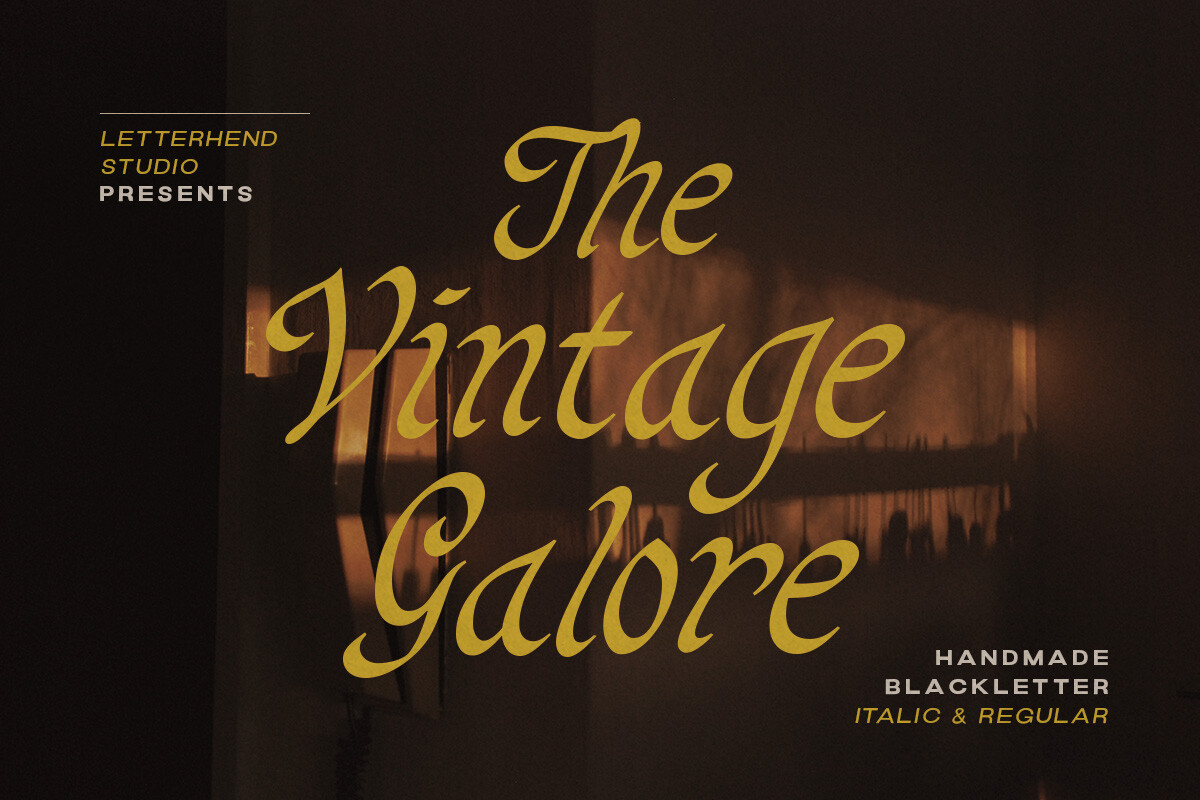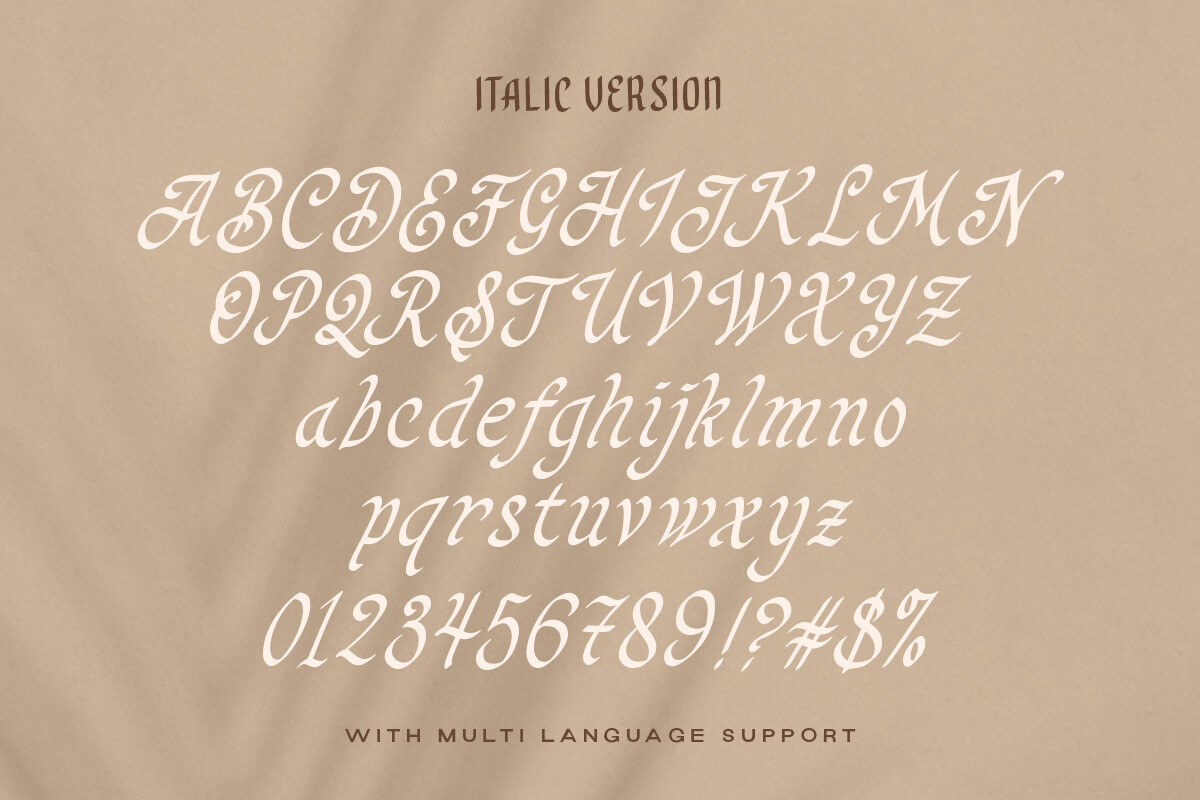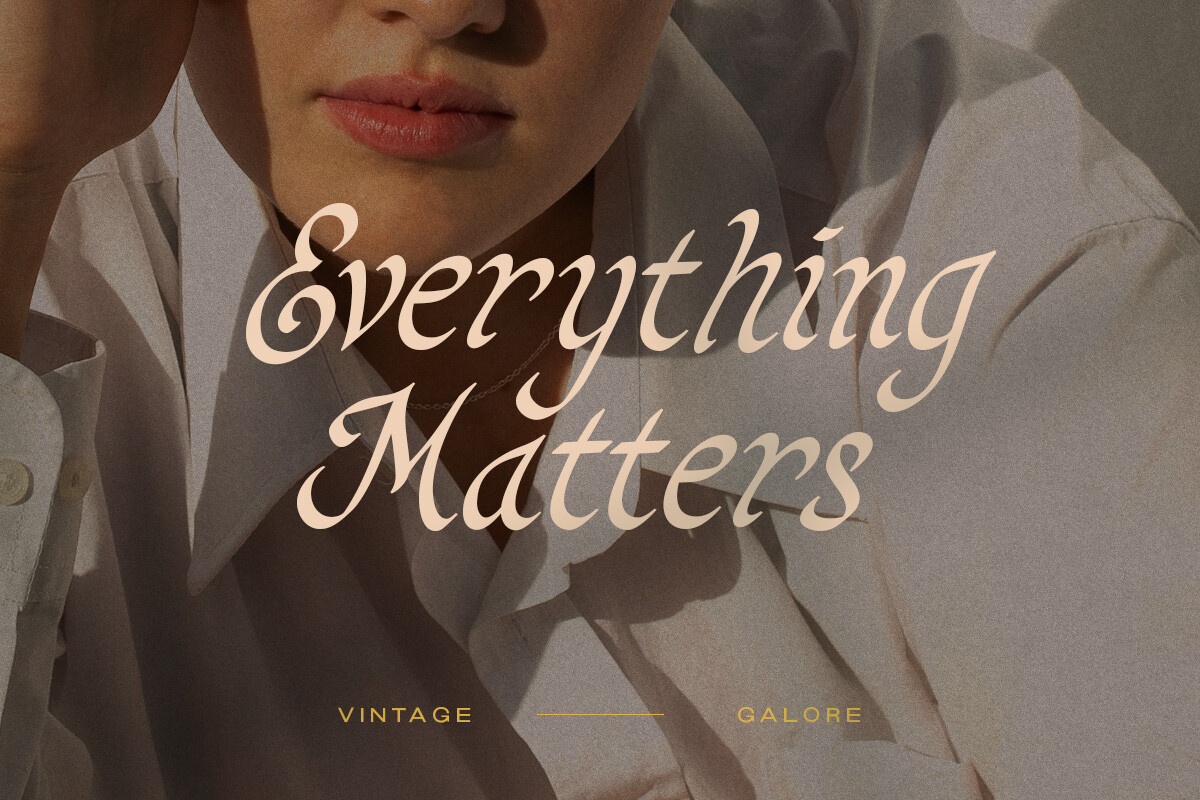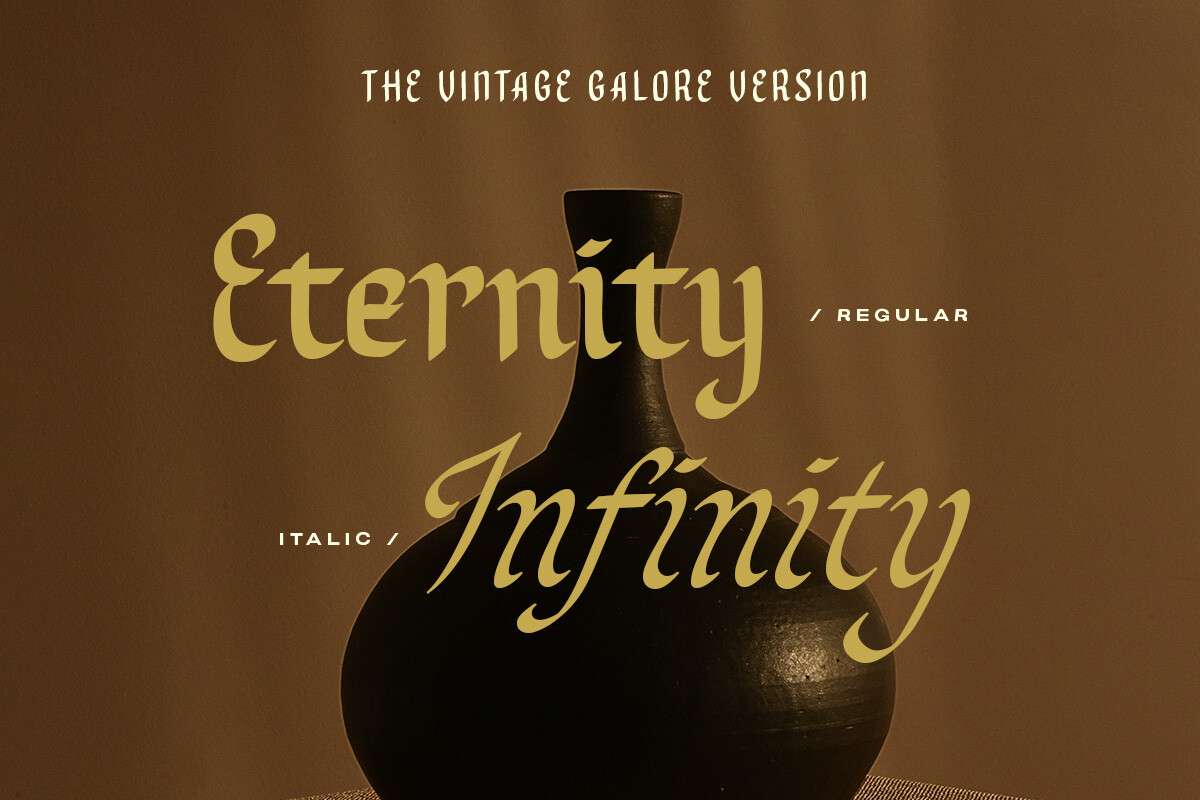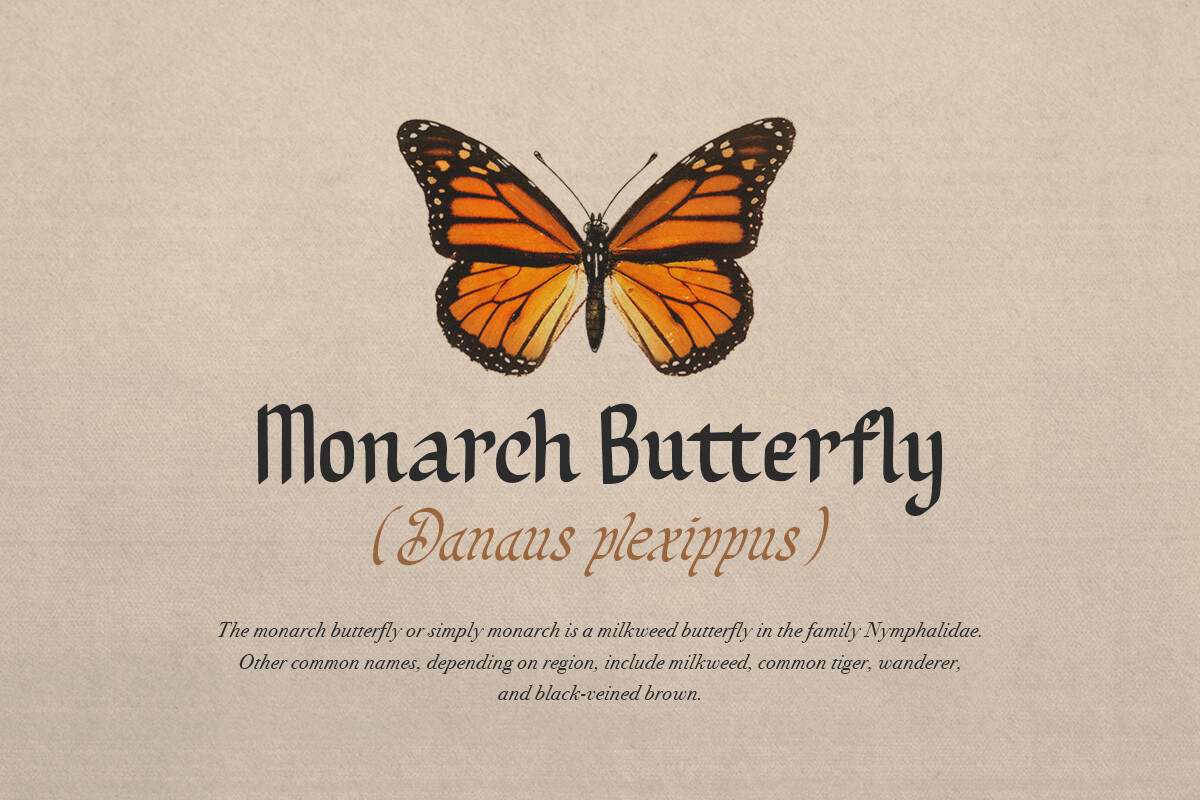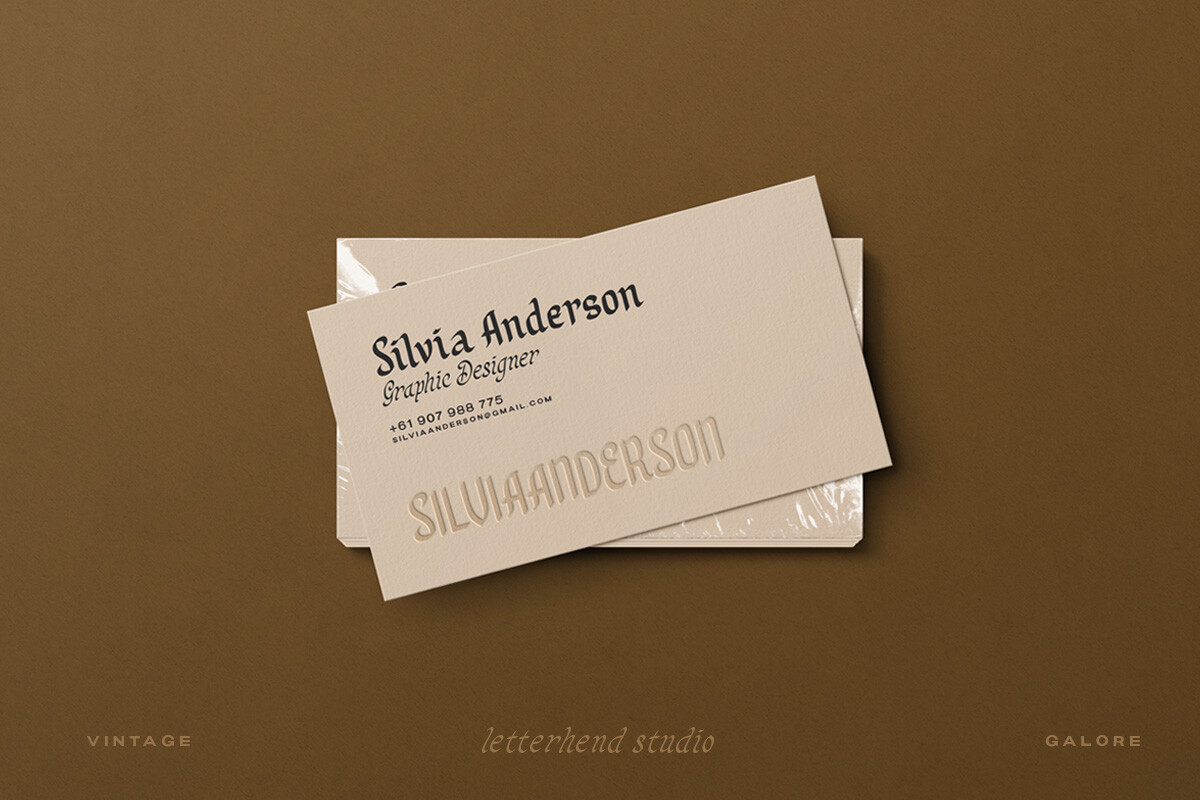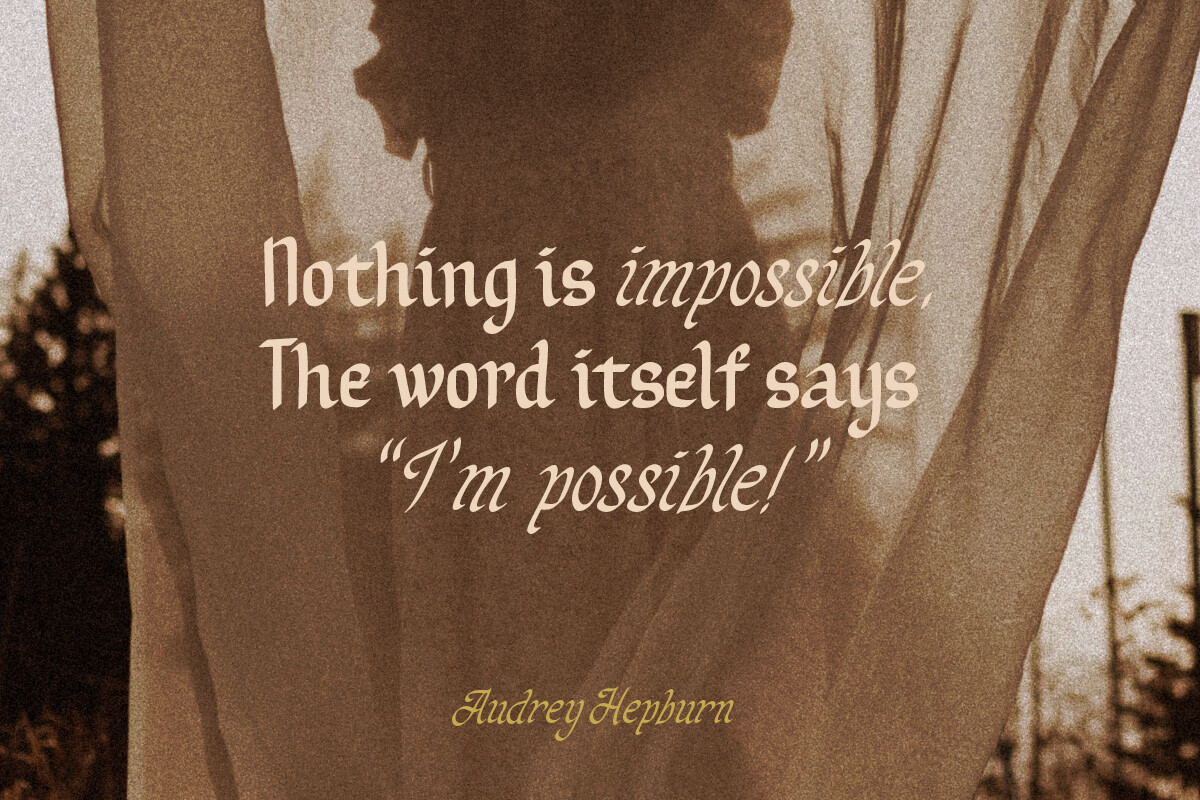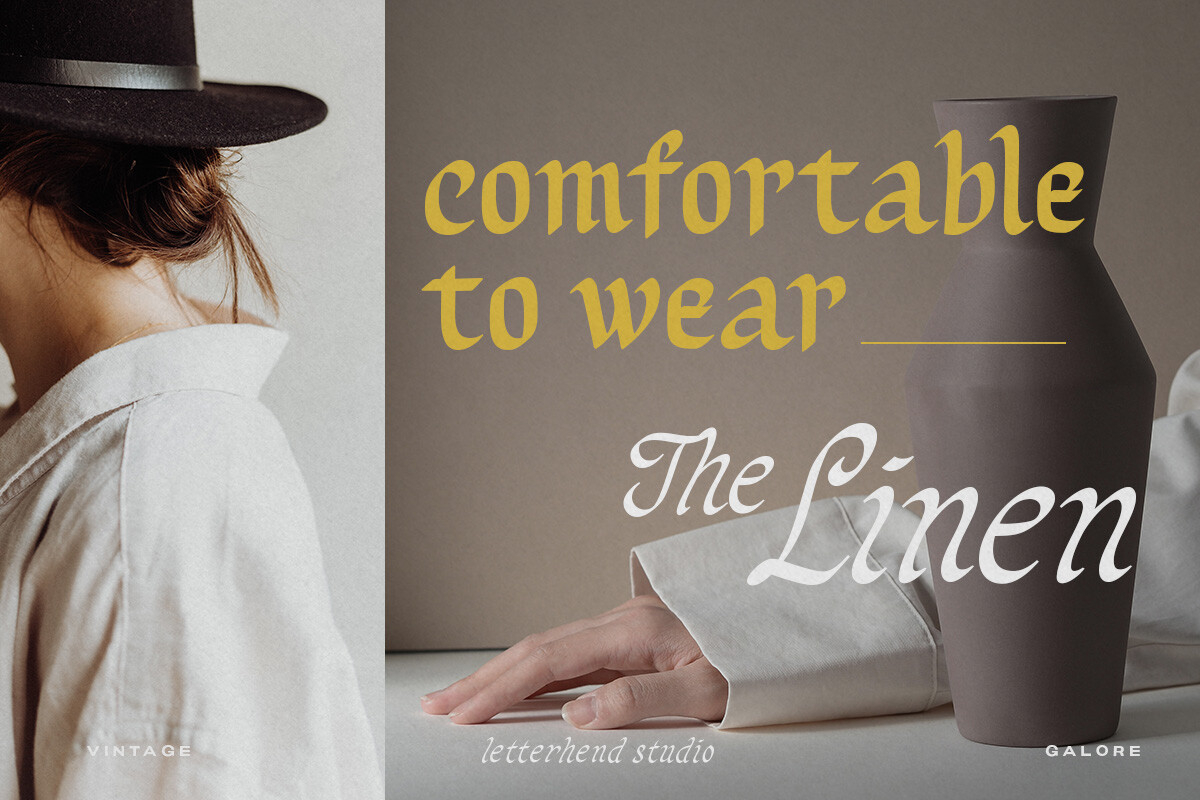
Vintage Galore Font
About Vintage Galore Font
Vintage Galore is a handmade blackletter font with casual & classic feels. This font will bring you back to 90s feel. This font perfectly made to be applied especially in logo, and the other various formal forms such as invitations, labels, logos, magazines, books, greeting / wedding cards, packaging, fashion, make up, stationery, novels, labels or any type of advertising purpose.